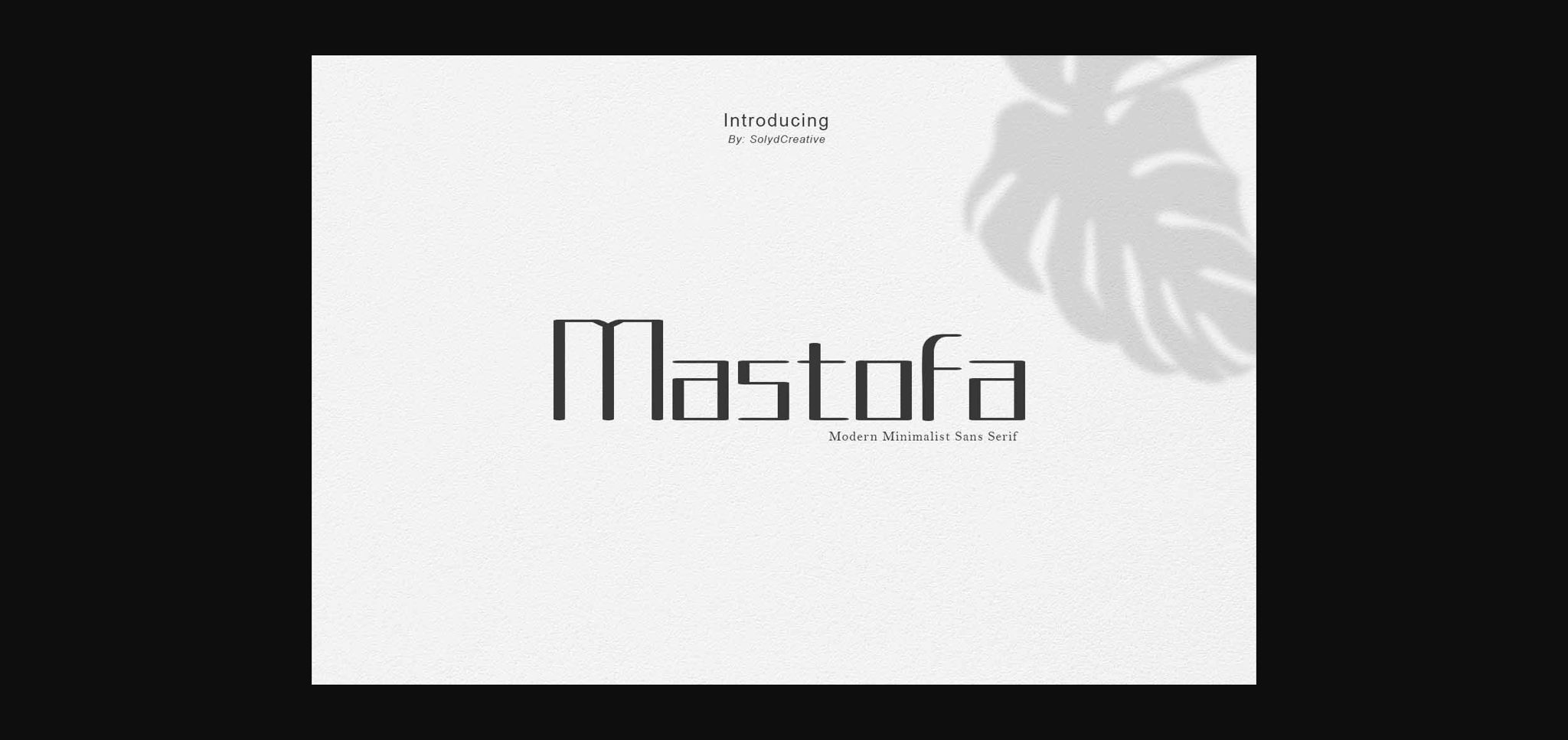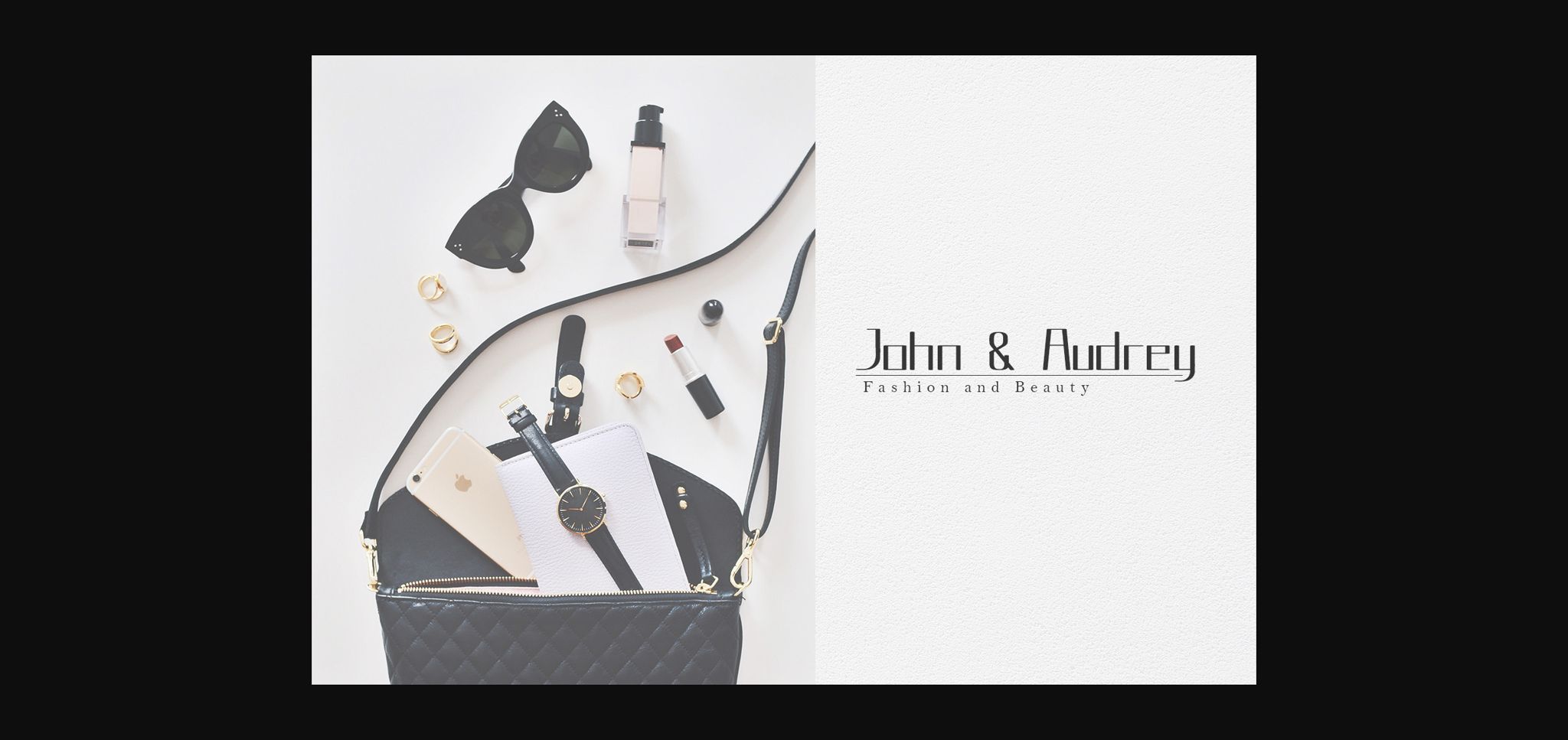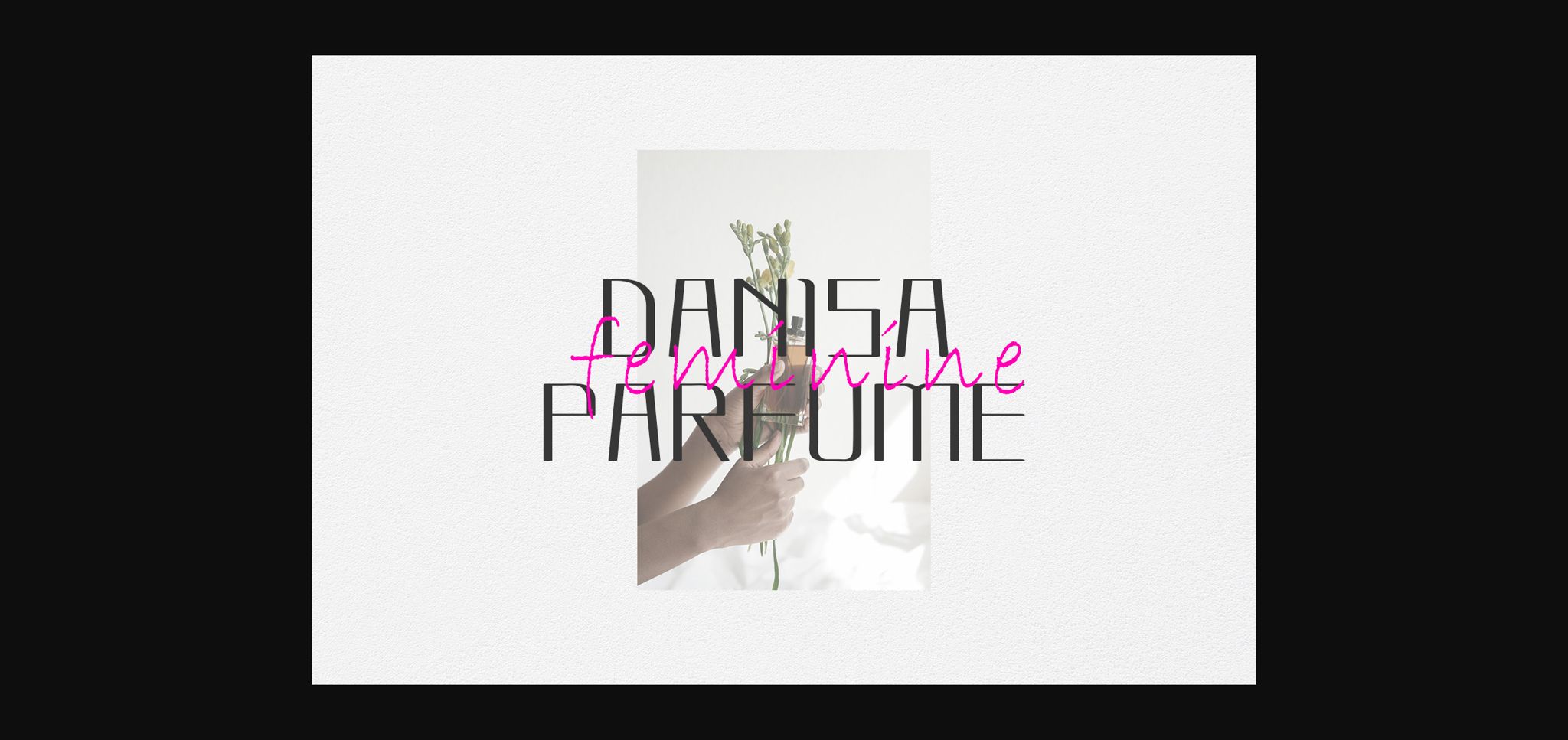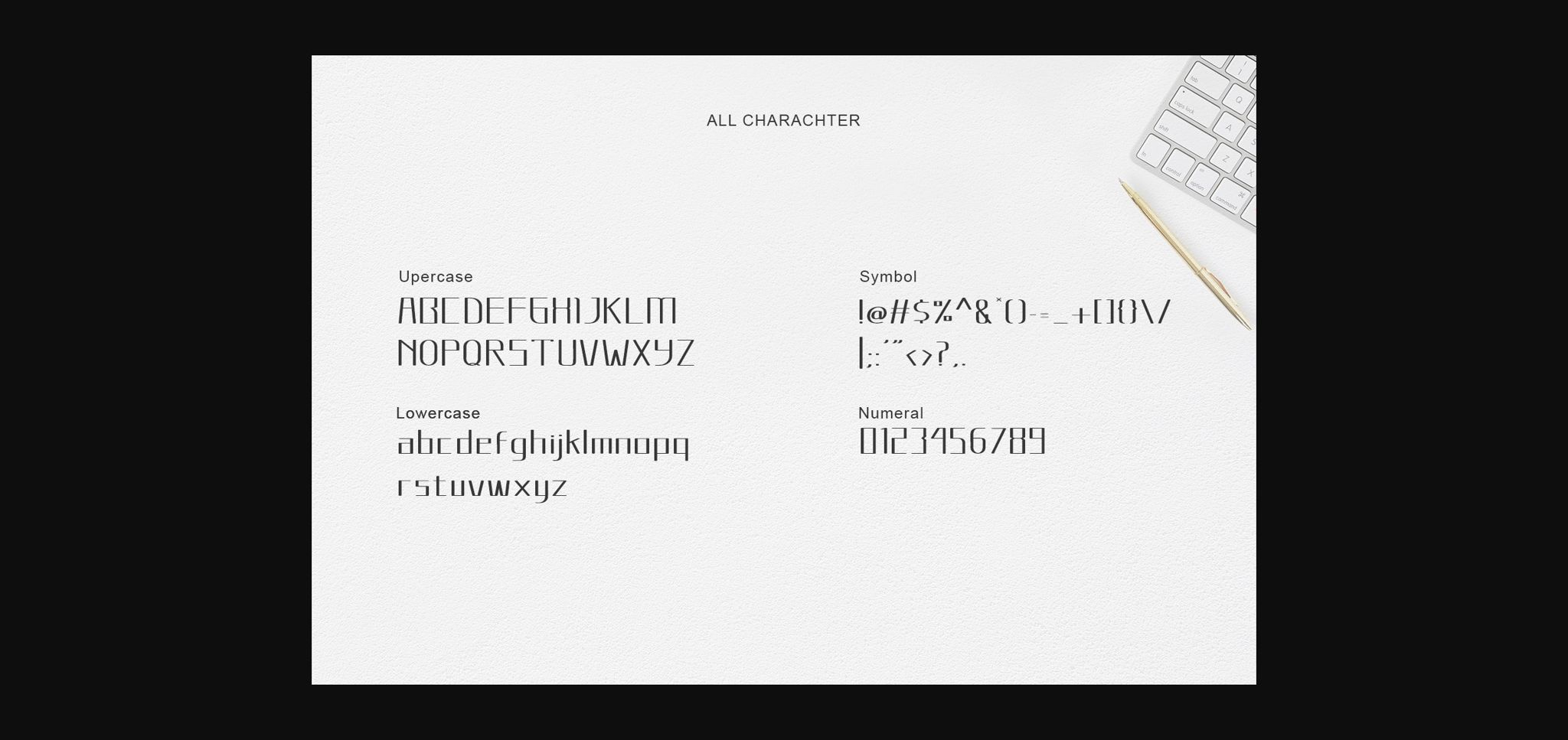
About Mastofa Font
Mastofa is a elegant, modern and minimalist sans serif font. It can be used for various purposes such as logos, wedding invitations, headings, t-shirts, letterhead, signage, labels, news, posters, badges and so much more.